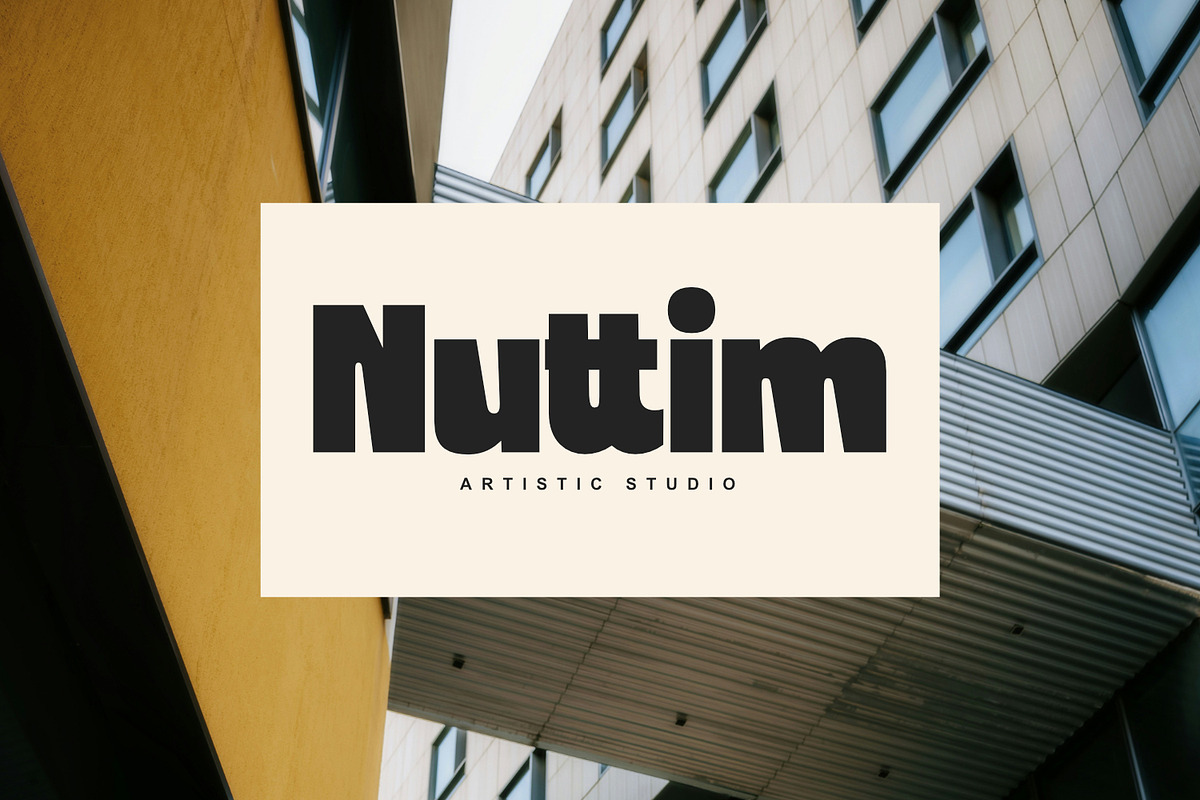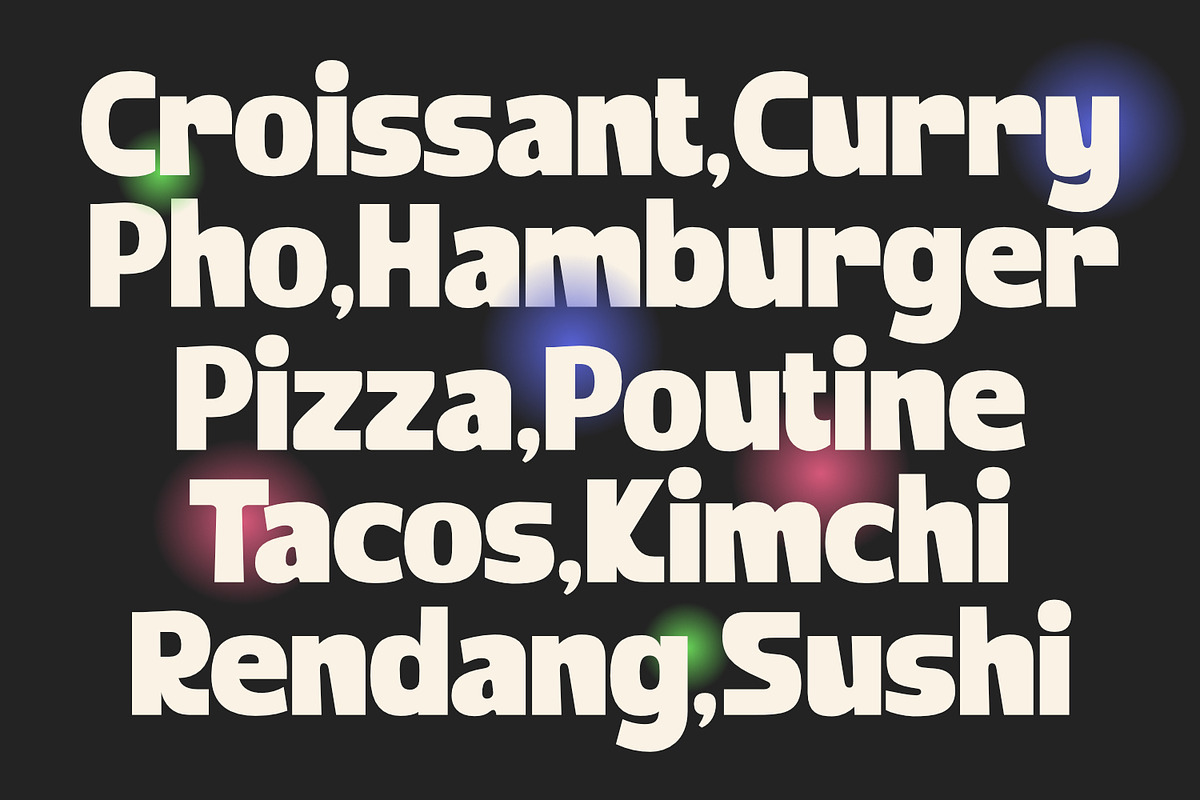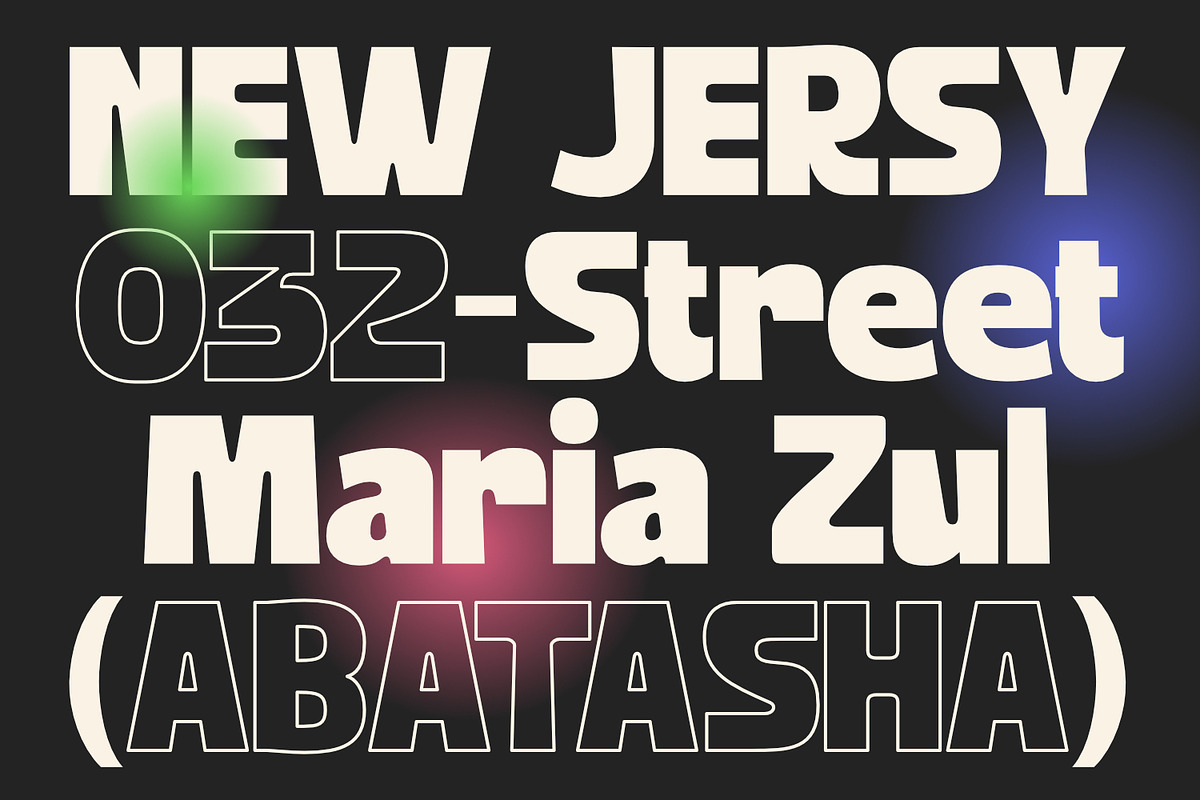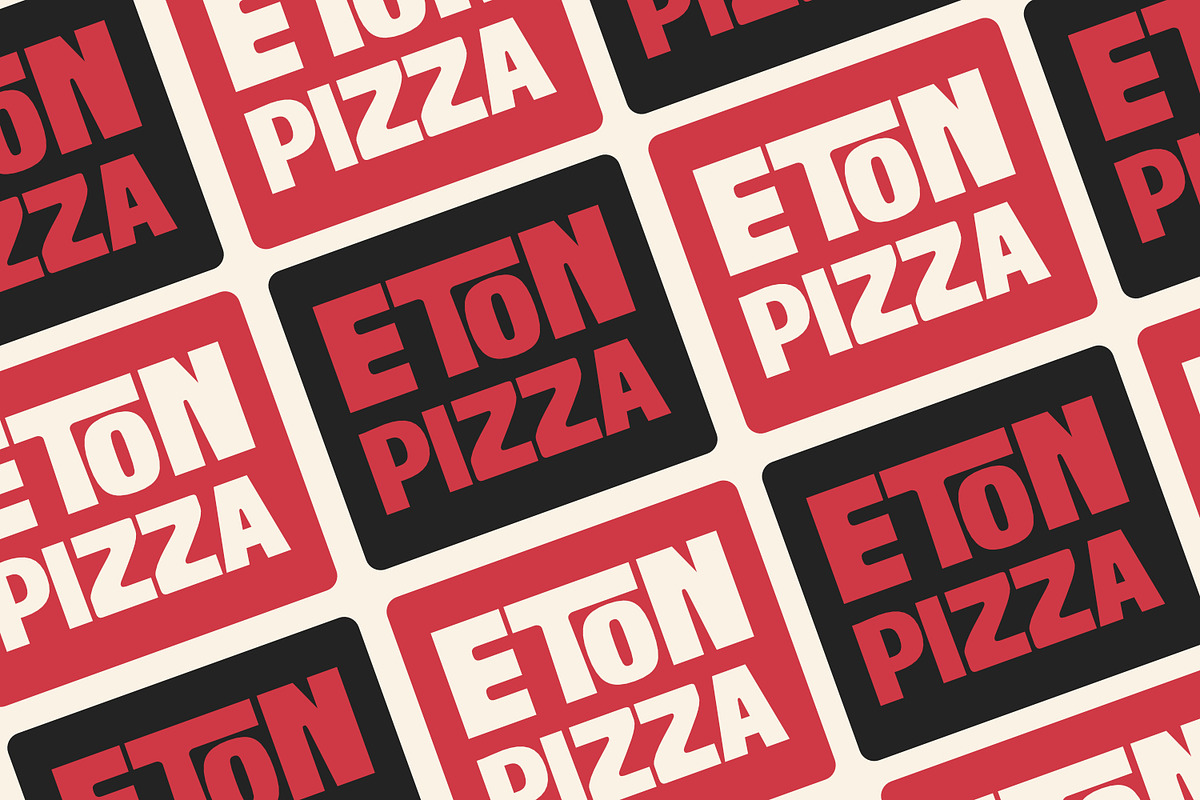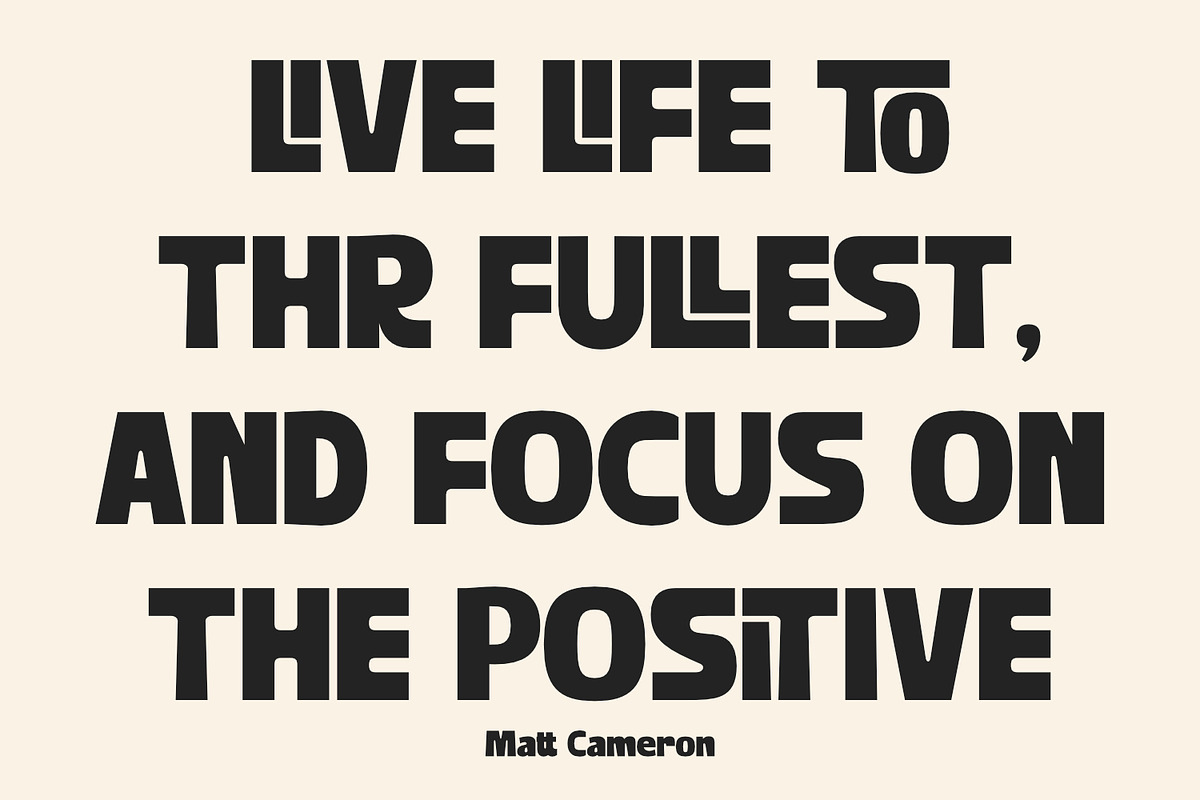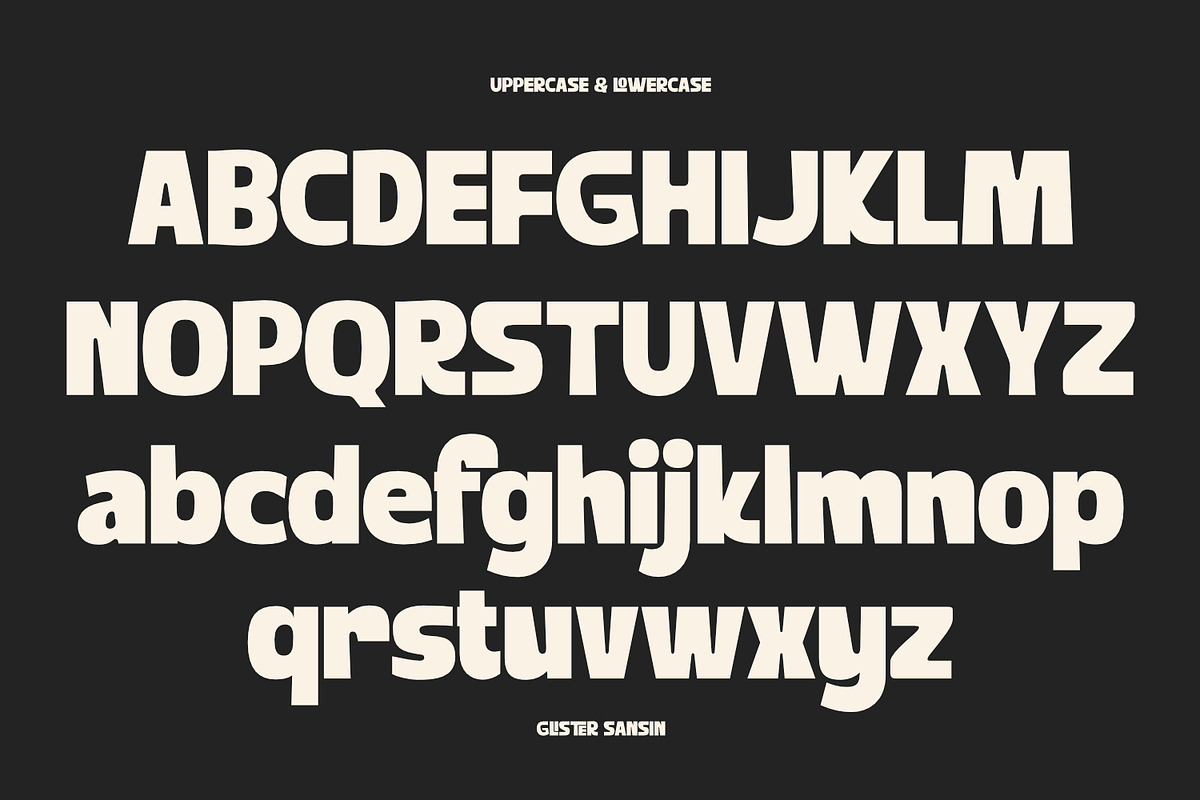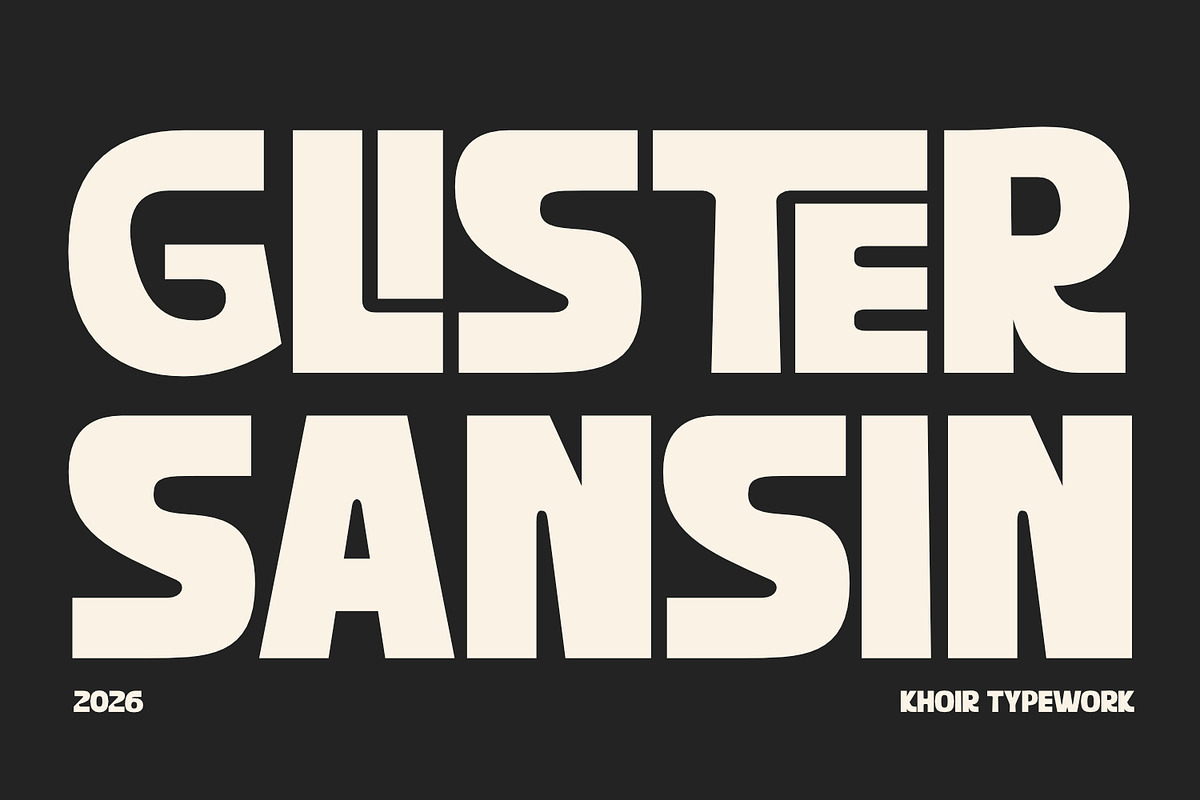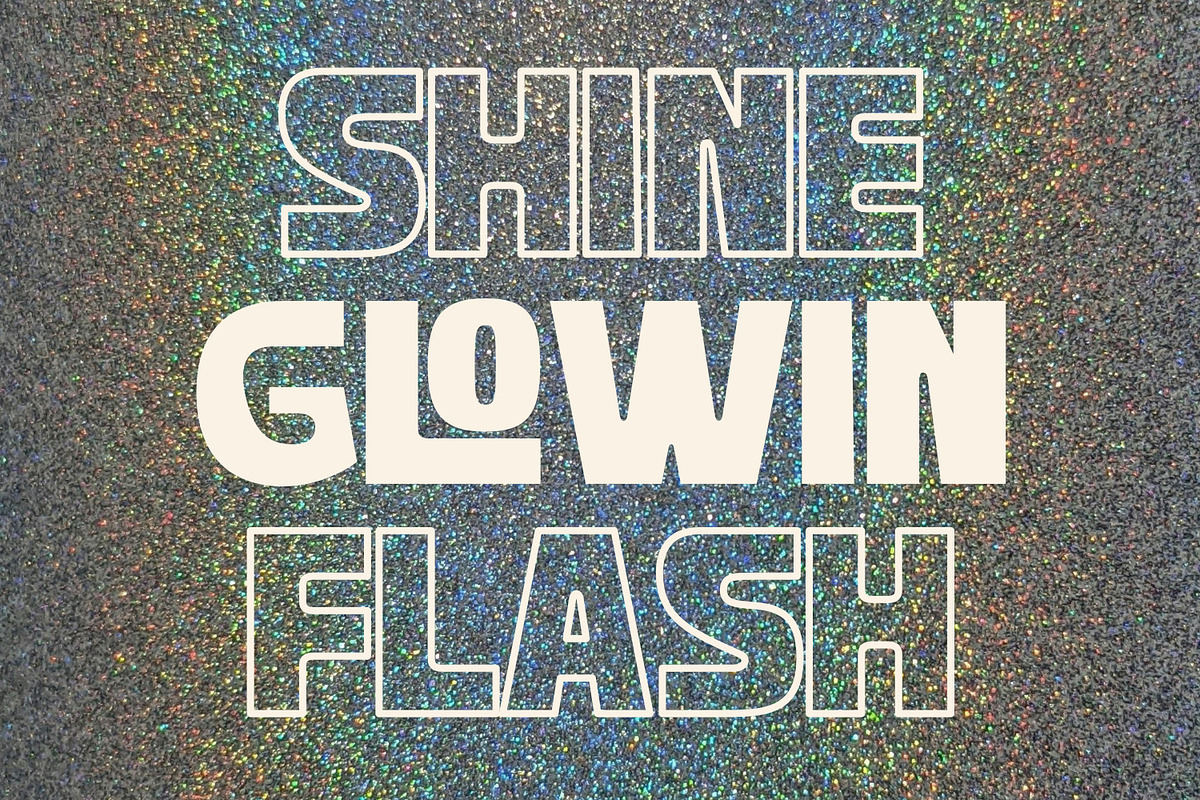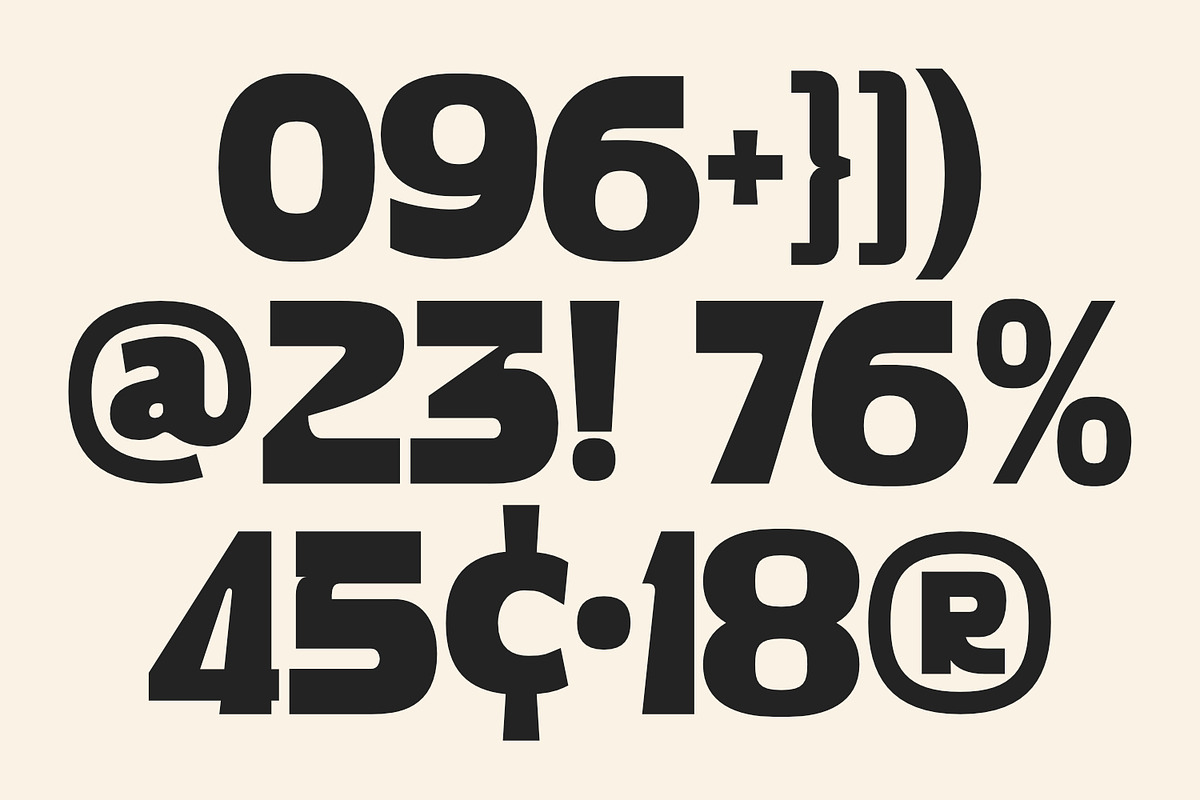
Glister Sansin - Display Font
A simple sans serif font designed to be slightly bold yet light on the eye and legible. This font has several characteristics in each letter, making it perfect for creating logos or page titles. It also features stacked ligatures, making it practical and pleasing to the eye and read. Try it yourself!